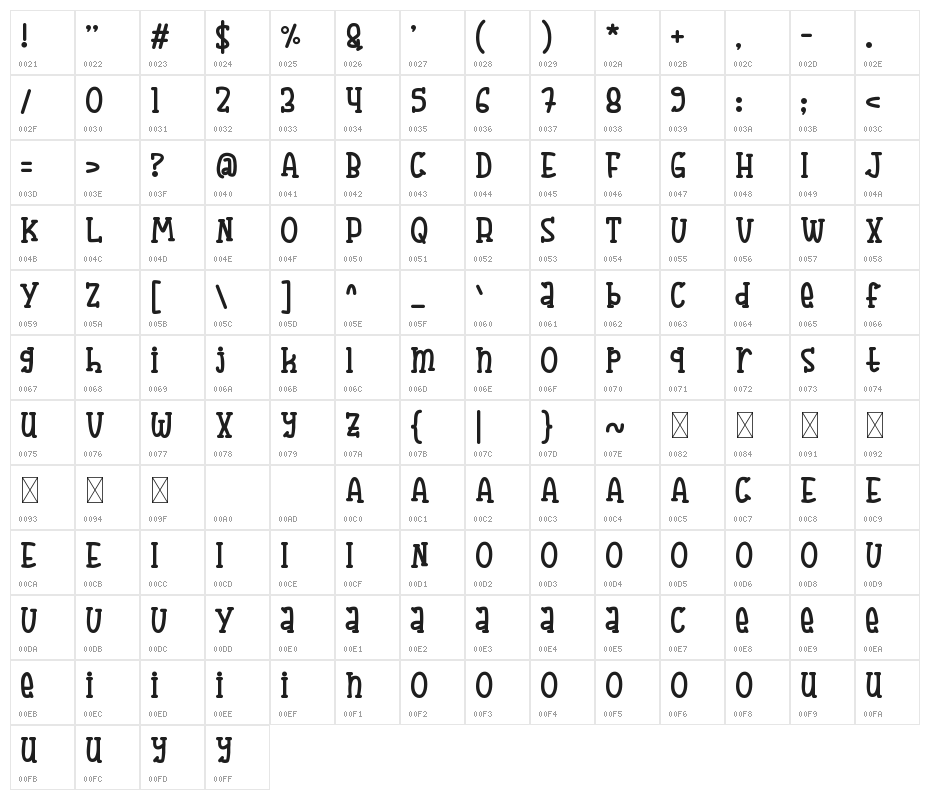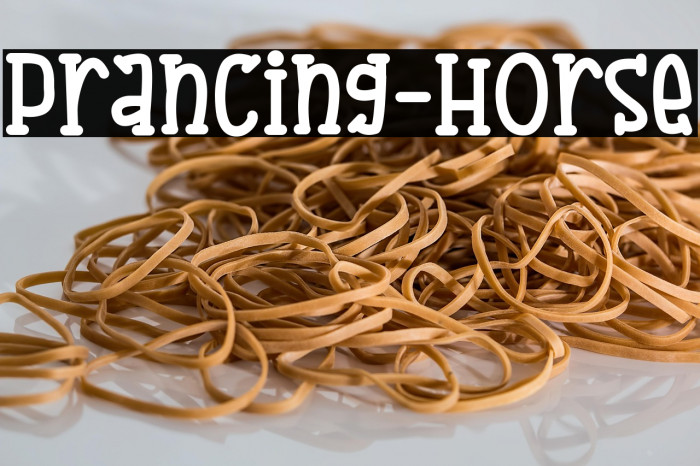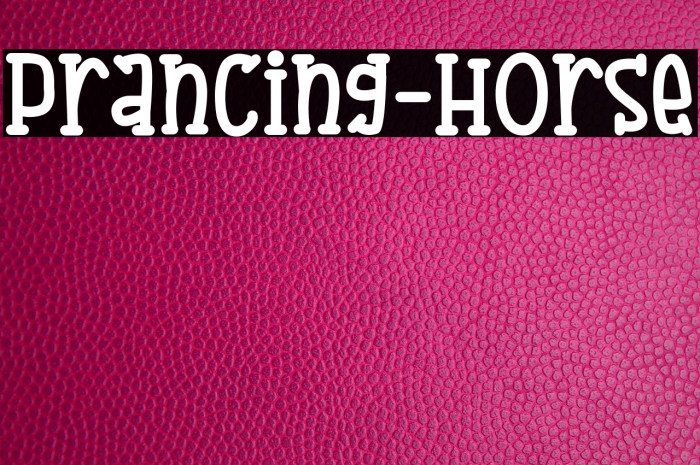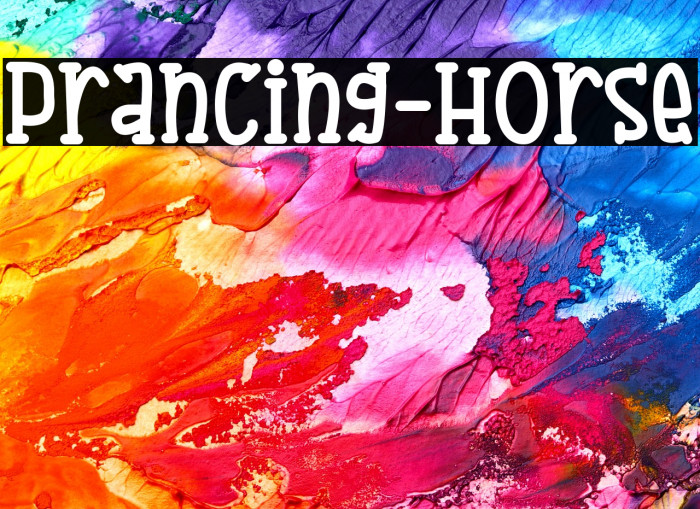
Prancing-Horse Font
Prancing-Horse Description
This font features a playful and whimsical design with rounded, bold characters that convey a sense of fun and creativity. The letters are slightly irregular, adding to the casual and informal appearance. The strokes are thick and consistent, providing a strong visual impact. The font maintains a uniform baseline with slight variations in character height, enhancing its quirky charm. The numerals and special characters follow the same playful style, making it suitable for projects that require a lighthearted and approachable feel.